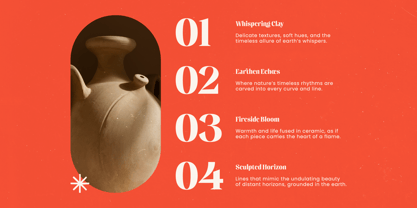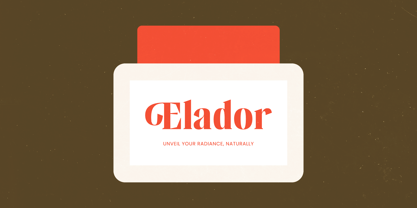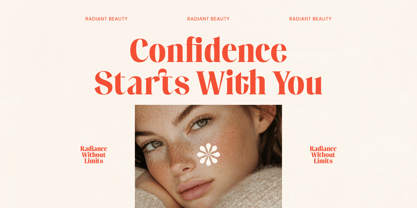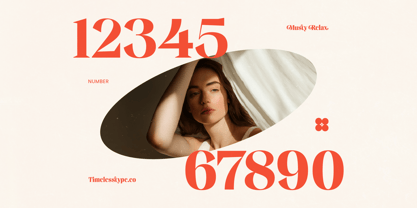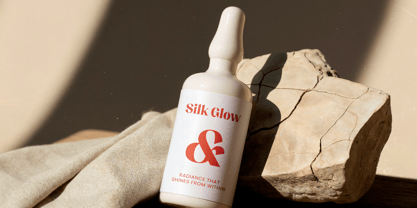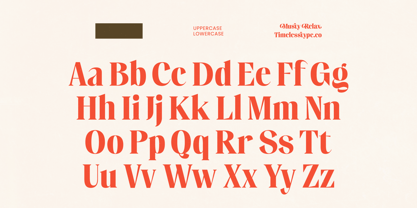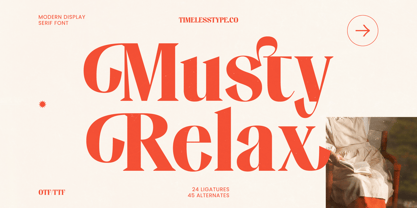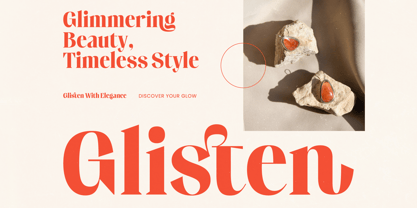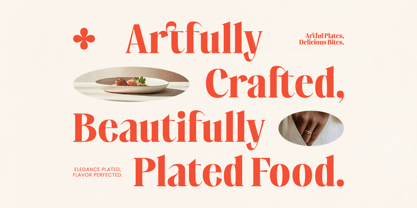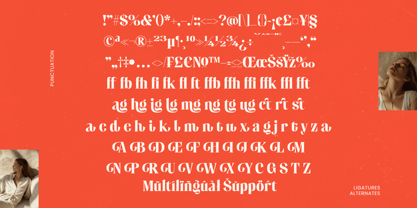
Musty Relax
The Musty Relax Font Family was designed by Heru Utama Putra and published by Timelesstype Studio. Musty Relax contains 2 styles and family package options. More about this family
Musty Relax – Modern Display Serif Font Musty Relax is a modern display serif font designed with bold character shapes, elegant contrast, and stylish contemporary details. The letterforms combine classic serif structure with modern design aesthetics, creating a sophisticated and expressive typographic style. The font features strong vertical strokes and distinctive serif endings that give it a confident editorial appearance. Its unique character shapes make it highly suitable for eye-catching headlines, stylish branding, and modern design layouts. Musty Relax also includes a collection of ligatures and alternate characters that allow designers to create unique typographic compositions. These additional glyphs provide flexibility for crafting distinctive logos, elegant titles, and refined visual identities. With its bold yet elegant presence, Musty Relax brings a modern editorial look that works beautifully across branding, fashion design, and contemporary visual projects.